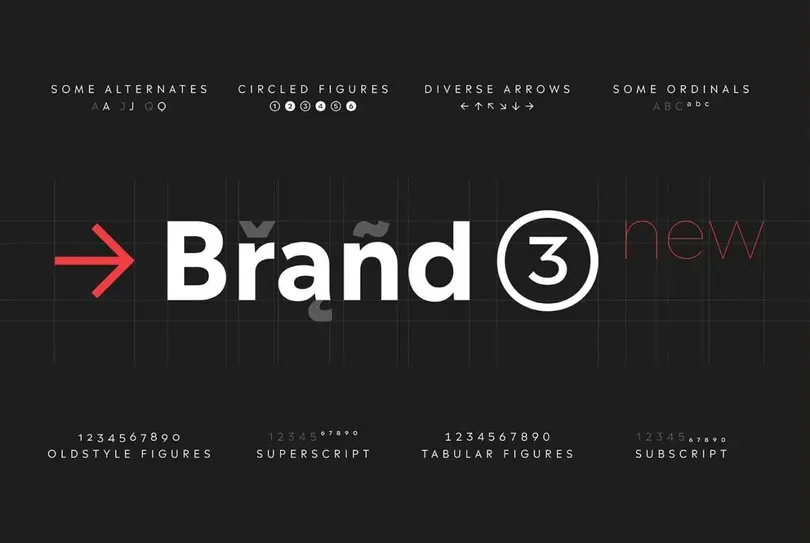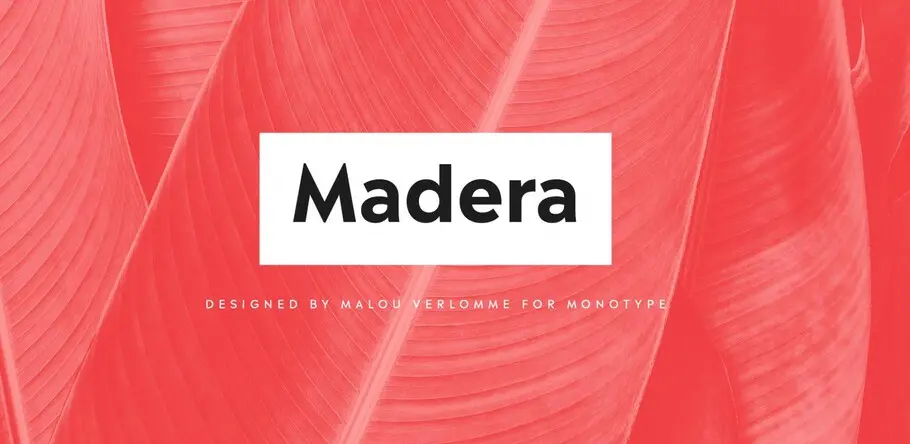
Meet Madera, a warm geometric sans serif font with a sharp edge.
「 With Madera, I tried to design a typeface that is in touch with what graphic designers need. 」
Malou Verlomme’s Madera is a fresh addition to the popular geometric sans serif genre, intended as a go-to typeface for branding and visual communication.
As a senior type designer at Monotype, Malou Verlomme has created quite a few custom typefaces for Monotype’s clients – giving him unique insight into what brands are looking for in a bespoke piece of type. This is what informed Madera, which is “a typographic synthesis” of Verlomme’s experience.
The design is aimed squarely at the specific needs of graphic designers, intended as an essential toolbox for communication. It is highly legible, versatile in its many weights, and has a very contemporary look and feel.
The Madera typeface is especially well suited for high-tech and publishing, with an emphasis on logos, signage and text.
“Before joining Monotype I collaborated very closely with graphic designers,” explains Verlomme. “and this always influenced my designs. With Madera, I kept the same approach and tried to design a typeface that is in touch with what graphic designers need.”
Madera taps into the current trend for geometric sans serifs, and it brings a rather distinctive flavour into the mix – featuring pointed apexes that contrast nicely with the geometry of its rounded forms.
「 Before joining Monotype I collaborated very closely with graphic designers, and this always influenced my designs. With Madera, I kept the same approach and tried to design a typeface that is in touch with what graphic designers need.” 」
These pointed forms were partly inspired by Verlomme’s research into the Monotype catalogue, which uncovered a dearth of contemporary sans serifs with similar features. These features were quite popular in posters of the 1930s and 40s and these served as a rich source of inspiration for the design.
“In the lowercase the sharp apexes are less noticeable, but in the uppercase they give a really nice flavour,” says the designer, who kept more contemporary proportions for Madera that help with setting a comfortable reading rhythm. “If you look at all caps settings, especially in the darker weights, the pointed triangles bring something extra that I really like.”
Madera also takes into account the needs of companies and designers that want a punchy typeface, but one that’s also prepared to play a supporting role to the branding message.
Madera is a geometric sans design with some humanistic traits, that’s marked by its pointy apexes. It
“The design is very solid but it doesn’t go out of its way to attract attention,” explains Verlomme. “It still has a fair amount of warmth and personality, in a very understated manner. If you’re a large corporation, with a typeface being used in many different environments, you want something that’s easy to use but can sustain such a large amount of visibility.”
With eight weights, including italics, and extensive Western, Central and Eastern European language support, Madera is supremely versatile. Its adaptability and high legibility means it’s as comfortable in print, for editorial use, as it is in advertising, online or other digital environments.